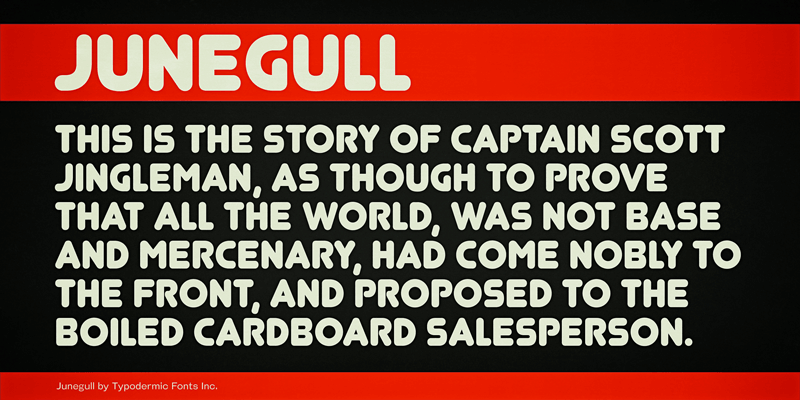
Junegull is a smart, hugworthy, allcaps rounded sans. She’s technological, yet soft . . . like a killer robot teddy bear. Numeric ordinals, fractions and loads of math symbols make Junegull you new squishy pal. Don't forget to read the files inside the zip for details. Grunged up styles with automatic OpenType ligatures are available for sale via various commercial font vendors. This font includes a license that allows free commercial use: sometimes referred to as a desktop license. This allows you to install the font on a computer and use it to create posters, web graphics, game graphics, t-shirts, videos, signs, logos and more. Read the license agreement for details. If you'd like to embed this font in an app, ebook, on the web or anything that's not covered by the desktop license agreement, visit the link below. You'll find distributors who offer different types of licenses or you can contact me for help. http://typodermicfonts.com/junegull/ This free font is part of a larger font family. Check out the rest of the family through the link above. |